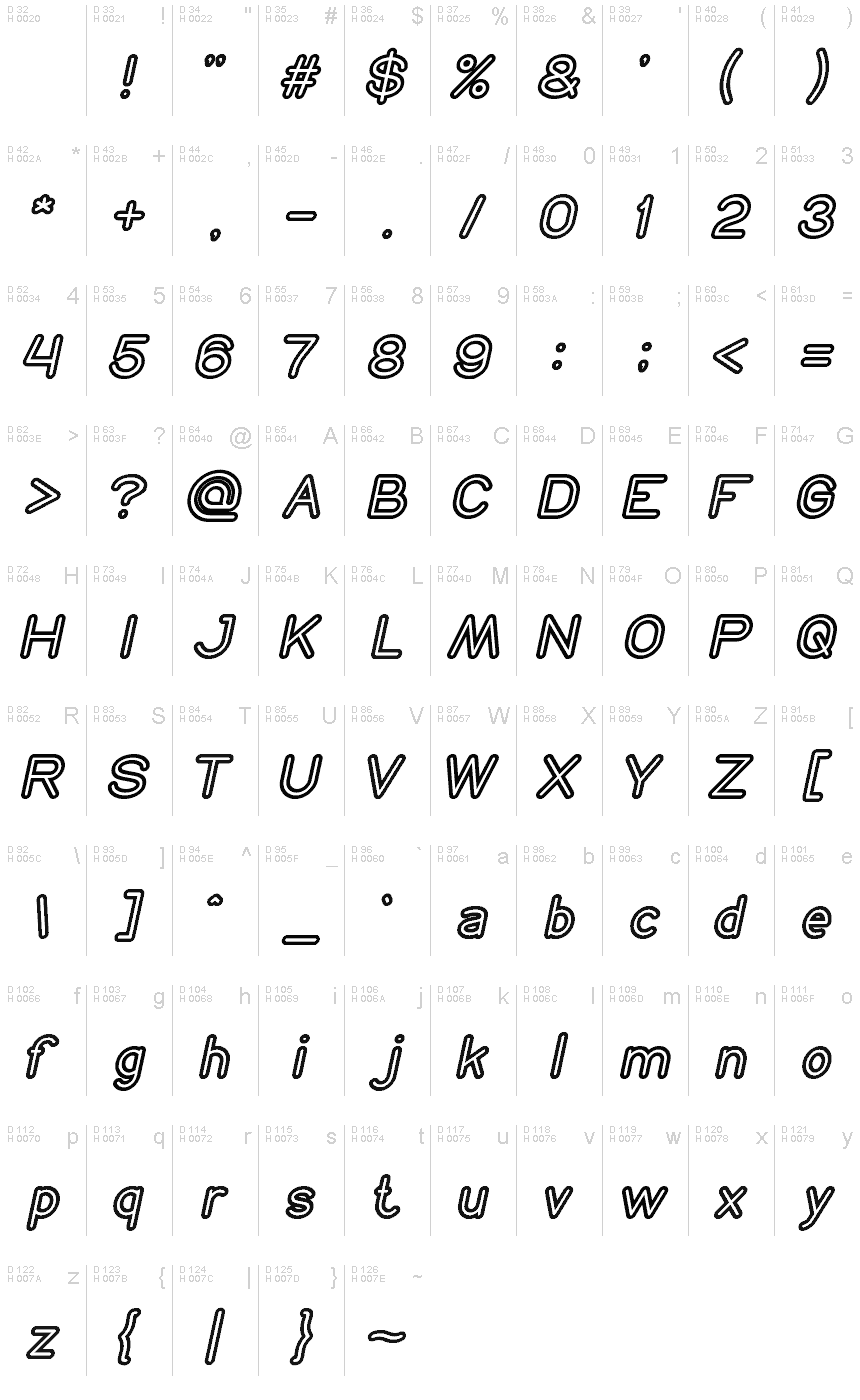
Neon Glow is a bold, eye-catching font that exudes a futuristic, neon-inspired aesthetic. Featuring a distinctive sans-serif outline, this striking typeface blends modern minimalism with a vibrant, luminous energy.
The italic styling adds a dynamic, forward-leaning quality, giving the font a sense of motion and intensity. Neon Glow's bold lines and dramatic forms make it an excellent choice for attention-grabbing headlines, impactful branding, and digital interfaces that demand a bold, contemporary look.
Its versatility allows it to shine in a variety of design contexts, from sleek product packaging to dynamic website layouts and beyond.